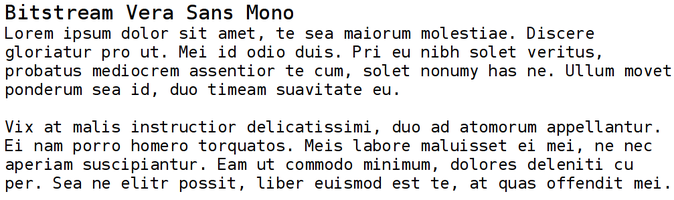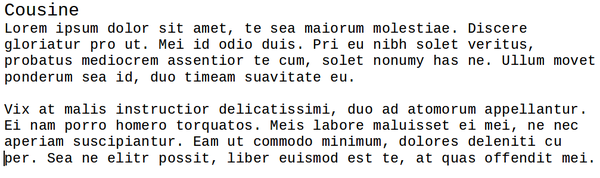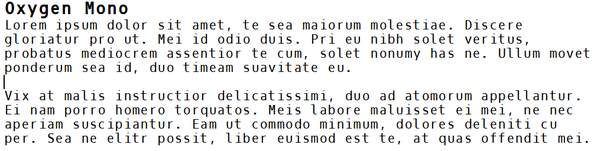
Six Monospaced Free-Licensed Fonts
Monospaced fonts are defined by having letters and spaces of equal width. Today, they are rarely used except for command lines displays and for specialized uses such as media scripts because they are associated with typewriters and are rarely as elegant as the serif and sans serif fonts that become popular with the rise of the word processor. In fact, in some cases, monospaced fonts do not have the resolution for typography.
Free licensed monospaced are no exception. Still, if you search, you can almost certainly do better than the clichéd and downright ugly Courier.
Bitstream Vera Sans Mono
The Bitstream Vera fonts were among the first free-licensed fonts. Their characters have little white space around them, making them much arger than the characters of fonts that are technically the same size. One the one hand, none of the font family will ever be mistaken for beautiful, but, on the other hand, they are by far the easiest to read. The Mono version is no exception.
Inconsolata
Inconsolata ws the first font designed by Raph Levien, a part-time designer of free fonts. It avoids the distortion of many monospaced fonts by having well-rounded bowls and broad curves at the top and bottom of upright letter strokes. As a result, it is one of the few monospaced fonts that can be used successfully for body text.
Oxygen Mono
The Oxygen family is the official font for the KDE desktop environment. It differs from its companion Oxygen Sans mainly by having wider spacing between letters. Even so, its spacing is tight enough to classify it as a condensed font. You wouldn't want to use it for body text, but it is suited to either the command line or the desktop, although it can seem cramped at font sizes less than 12 points.
Droid Sans Mono
Designed by Google, Droid is a font family designed for tablets and phones. In the illustration, it appears at 12 points so it can be studied, but its low ascending strokes and short descending strokes make it very easy to read at 8-10 strokes.
Ubuntu Mono
Ubuntu Mono is part of a font family for desktops and terminals. It is perhaps the least successful of the family, but if you want a darker font for easier reading, it is a possible candidate. For other purposes, give it more space between lines or between characters.
Cousine
On of the most common monospaced fonts is Courier New, which is as ugly as any of the fonts simpled labeled Courier. Cousine is a metrical equivalent of Courier New, which means that, although the characters may have different designs, they occupy the same space as Courier New's. Such a metrical equivalent means that you don't have to worry about using non-free fonts. In the case of Cousine, it also means that you can use a somewhat better-looking font.
Other choices
Going through this list, you may have noticed that many of the fonts listed are part of a family, with matching serif and sans serif fonts. These families are a trend that has emerged in the last few decades, and has the advantage of offering already-matched fonts for those who lack the confidence to make their own matches.
You might also notice that many fonts on the list are Sans Serif -- that is, without hook at the tops and bottoms of character strokes. The reason, I suspect, is that monospaced serif fonts often use large serifs to keep the spacing between letters regular. In most cases, sans serifs with curved lines are likely to look less clumsy.